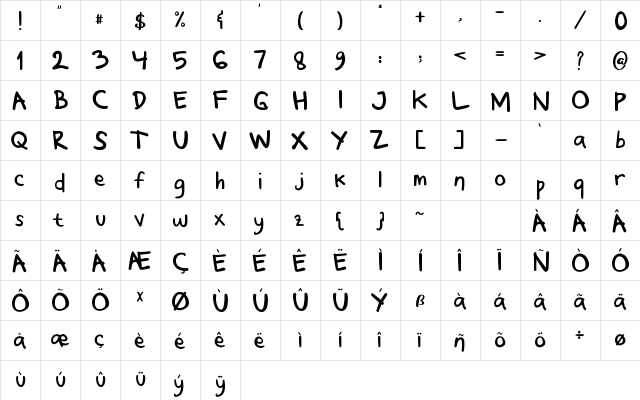
Wonderwolf Regular
Design Context for Wonderwolf Typeface
Wonderwolf is a composed and adaptable typeface that performs quietly and consistently across a wide range of design contexts.